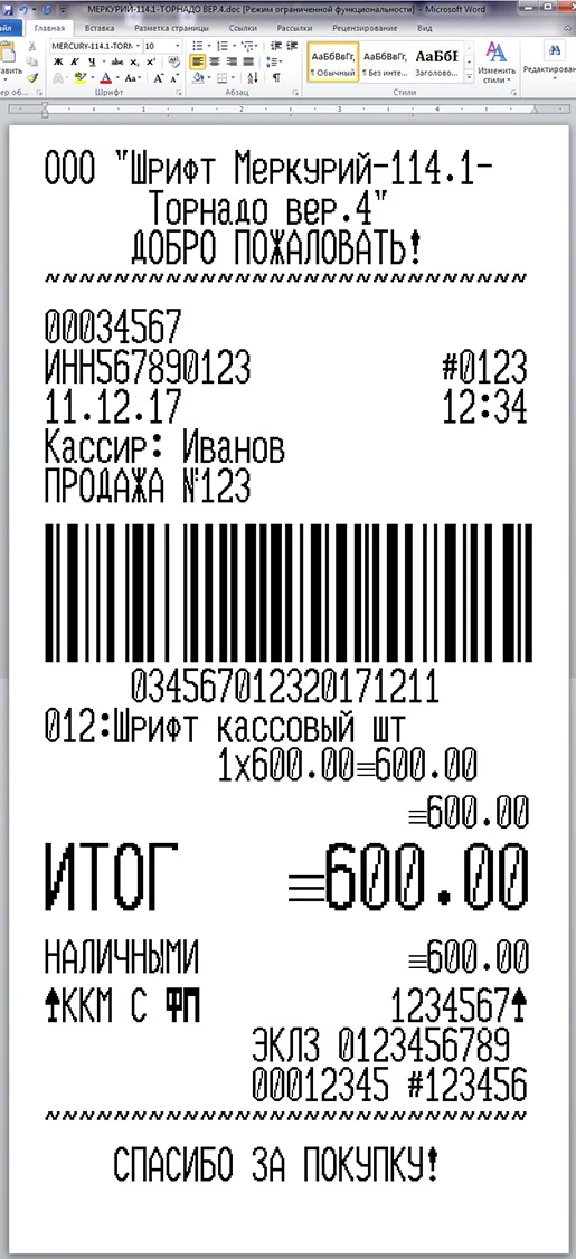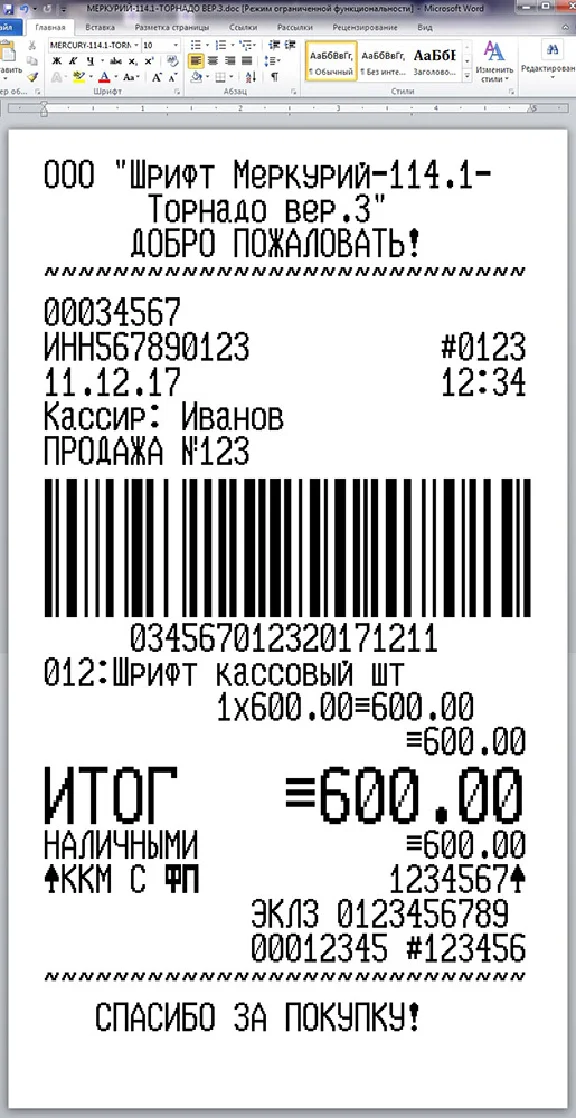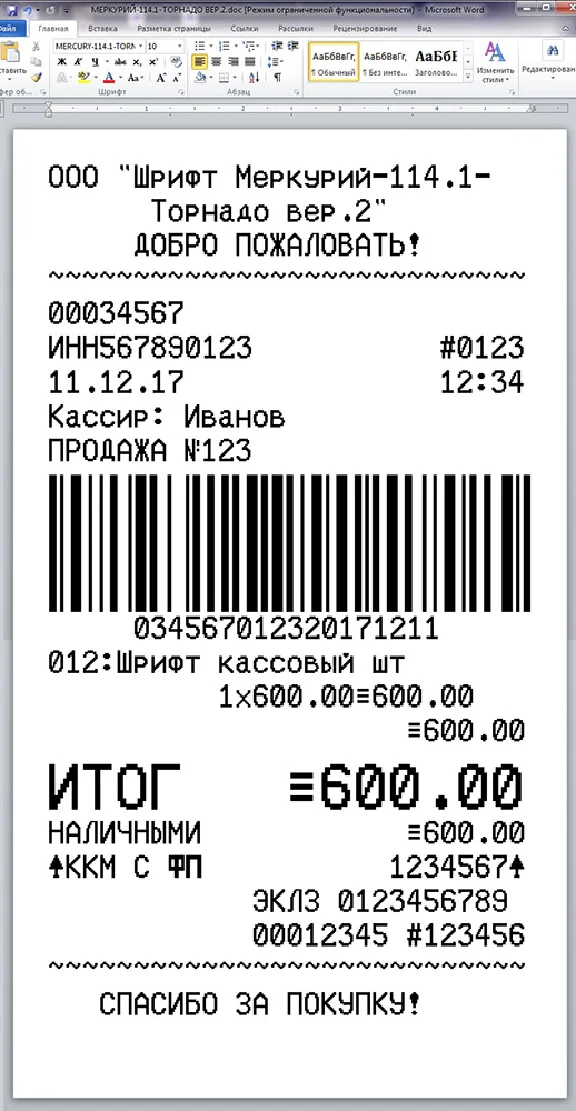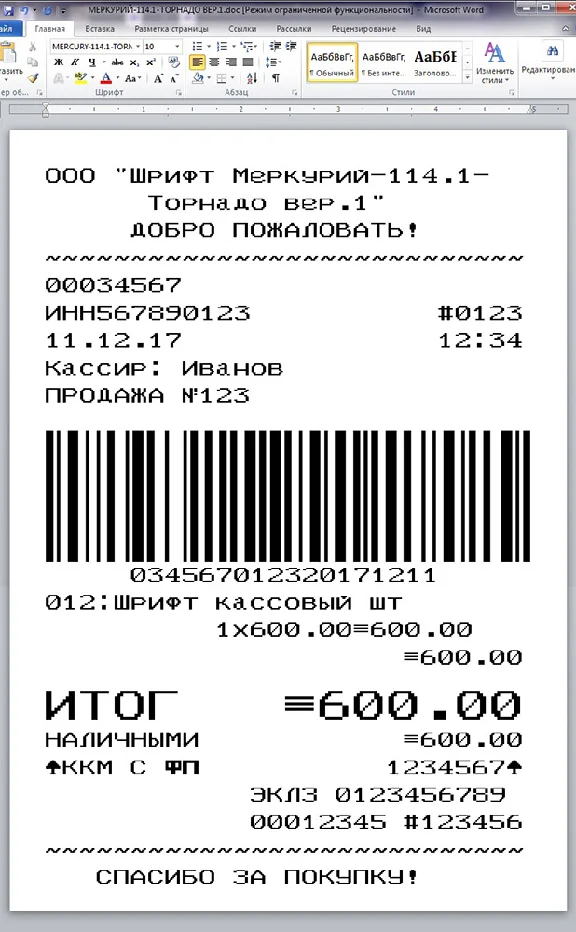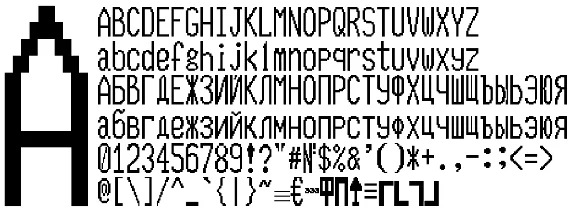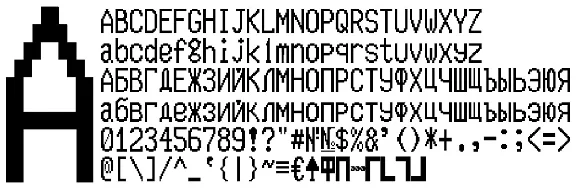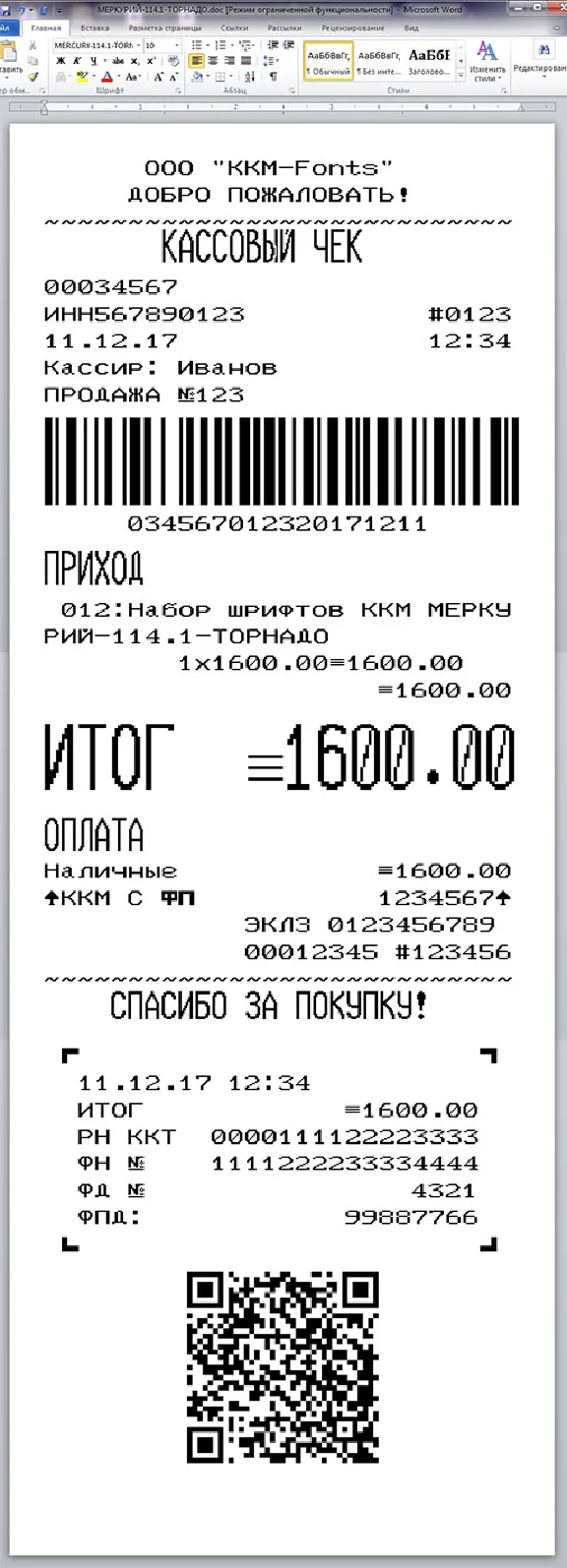
This full set of MERCURY-114.1-TORNADO cash register fonts contains 4 versions of TTF (Russian and English letters) fonts for use in Microsoft Word. The archive contains fonts in TTF format and templates of check options. Often, shops use in one check several types of fonts in order to protect the check against forgery. This set will allow you to repeat any check printed on this unit. You just need to install the fonts in the system (usually C: \ WINDOWS \ Fonts), open the template and start editing. Print checks preferably on a thermal printer, on the cash register tape. Although it is possible to print both on a jet and laser, with the possibility of output on fax paper. The best quality, of course, when printing on thermal printers.